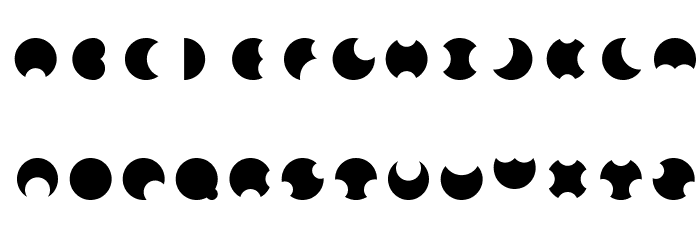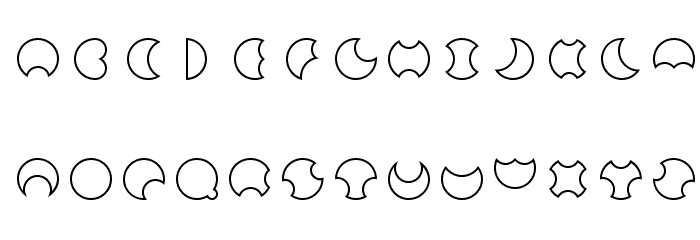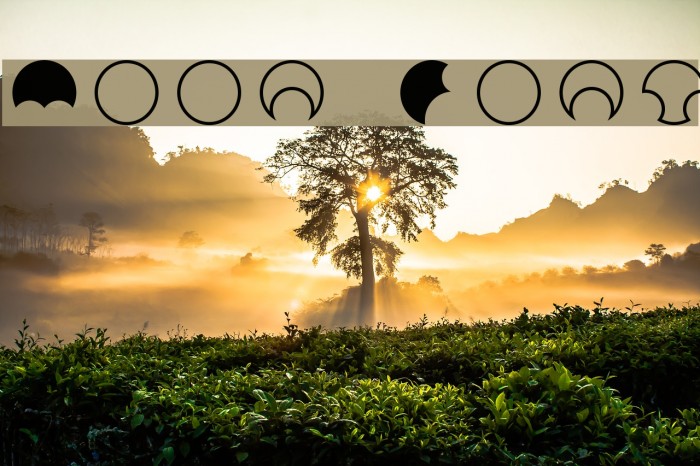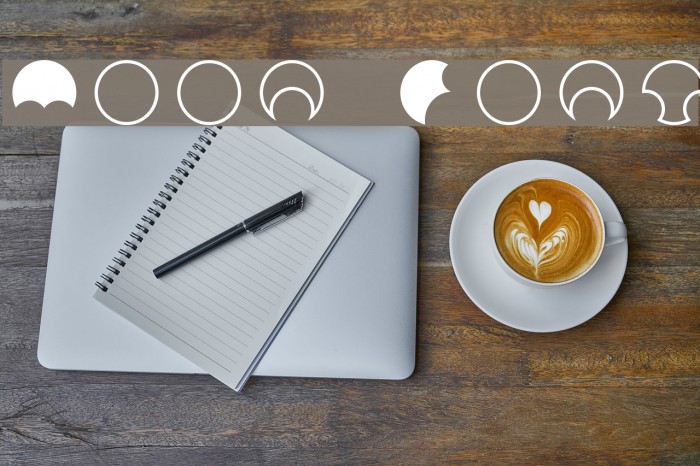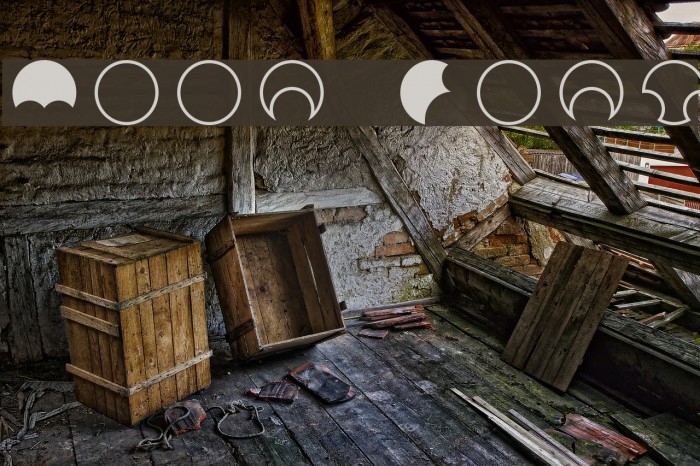
Moon Font
This design features a series of crescent and circular shapes that resemble various phases of the moon. The bold, solid black forms on the top rows contrast with the outlined versions below, creating a dynamic visual effect. The shapes are consistent in size and spacing, offering a cohesive and rhythmic pattern. The design is abstract and decorative, with a playful yet sophisticated aesthetic. It could be used in a variety of creative projects, from branding to artistic compositions, where a celestial or cosmic theme is desired.
A decorative design of crescent and circular shapes resembling moon phases.
- Proposed Projects: Ideal for branding, artistic compositions, or any project with a celestial theme.
- Use Case: Logos, Artistic compositions